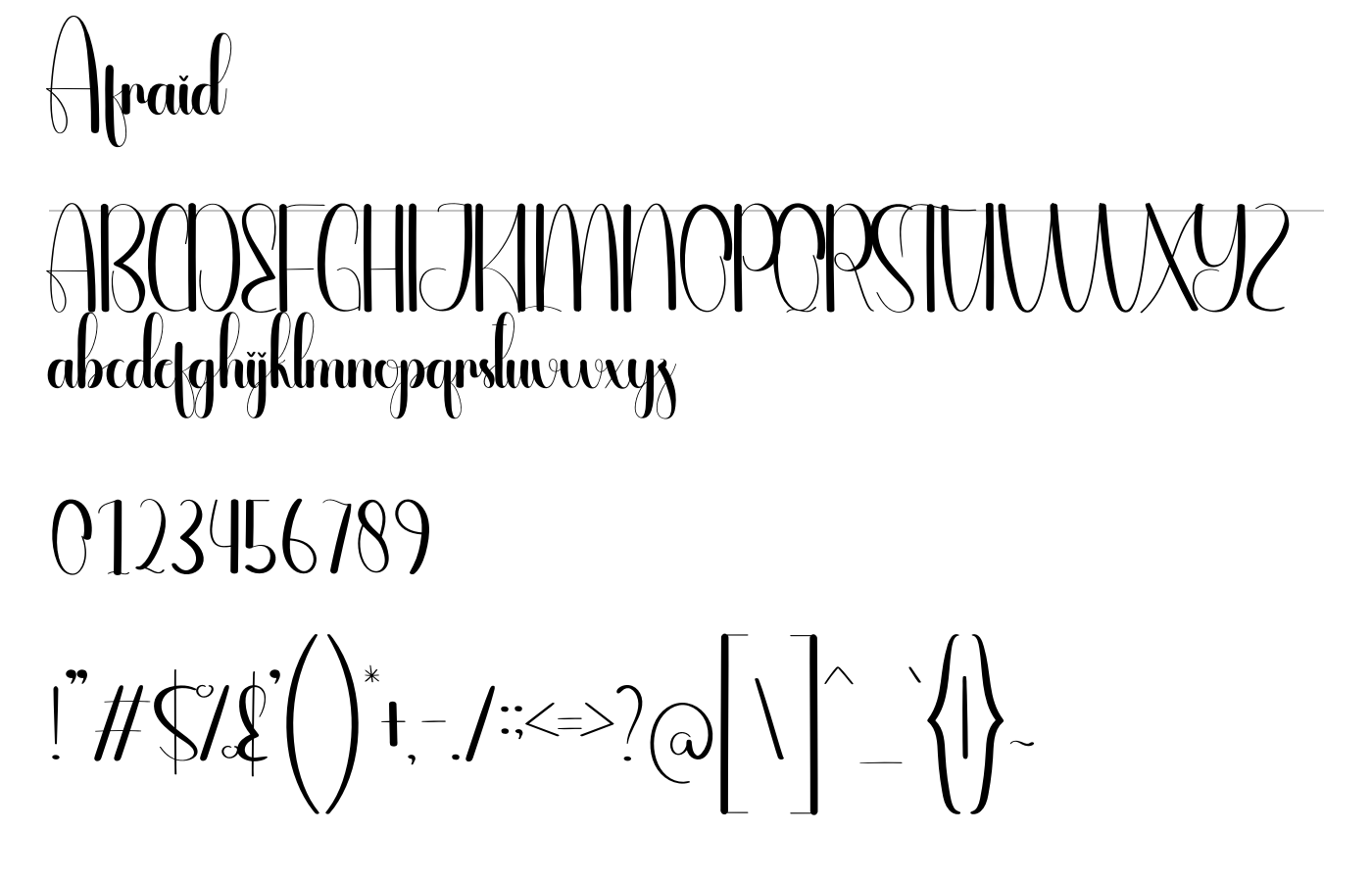
Afraid Font is a whimsical, tall, and elegant script typeface with a unique blend of thin, elongated strokes and delicate flourishes that create a playful yet graceful personality. Its high contrast and narrow letterforms make it ideal for eye-catching headlines, logos, and fashion branding where a distinctive, stylish, and refined look is desired. This font works especially well in creative projects that seek a mixture of elegance and quirky charm.
Afraid Font
About Afraid Font